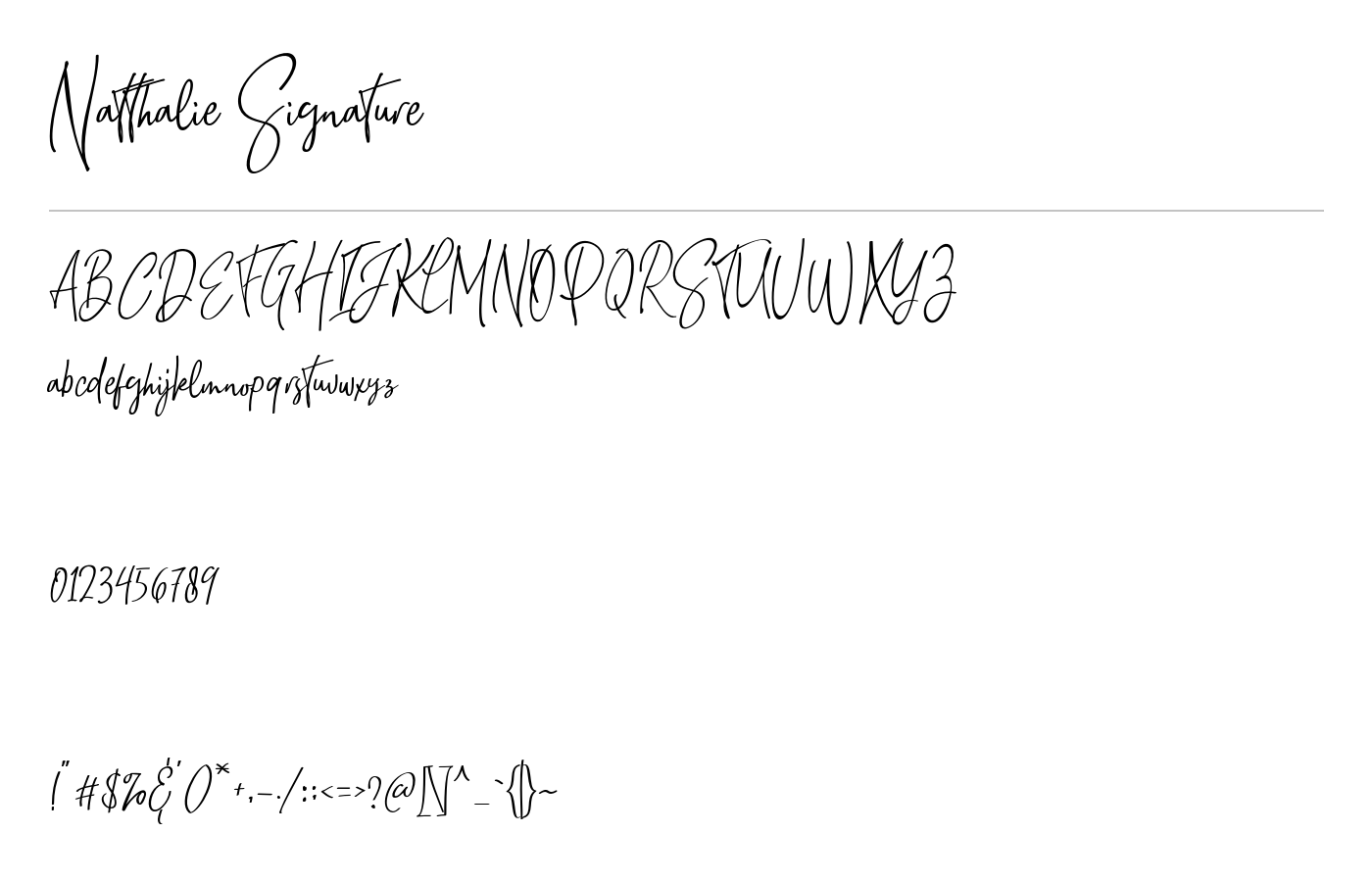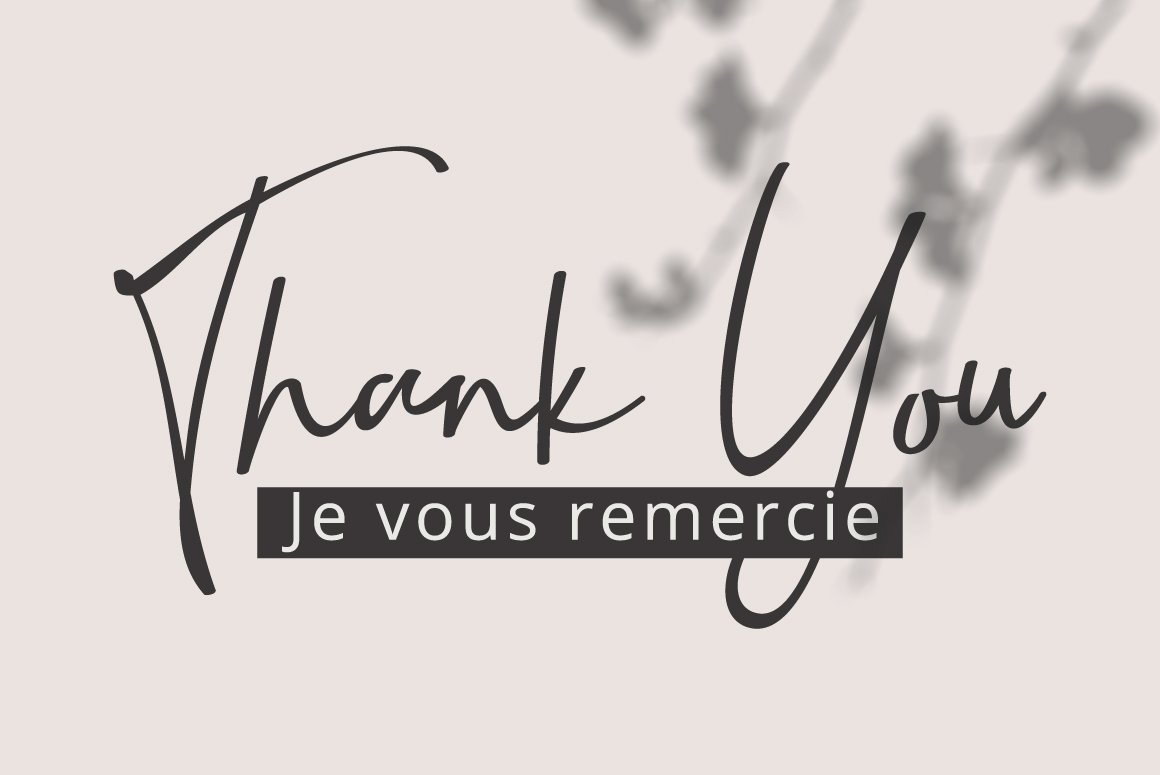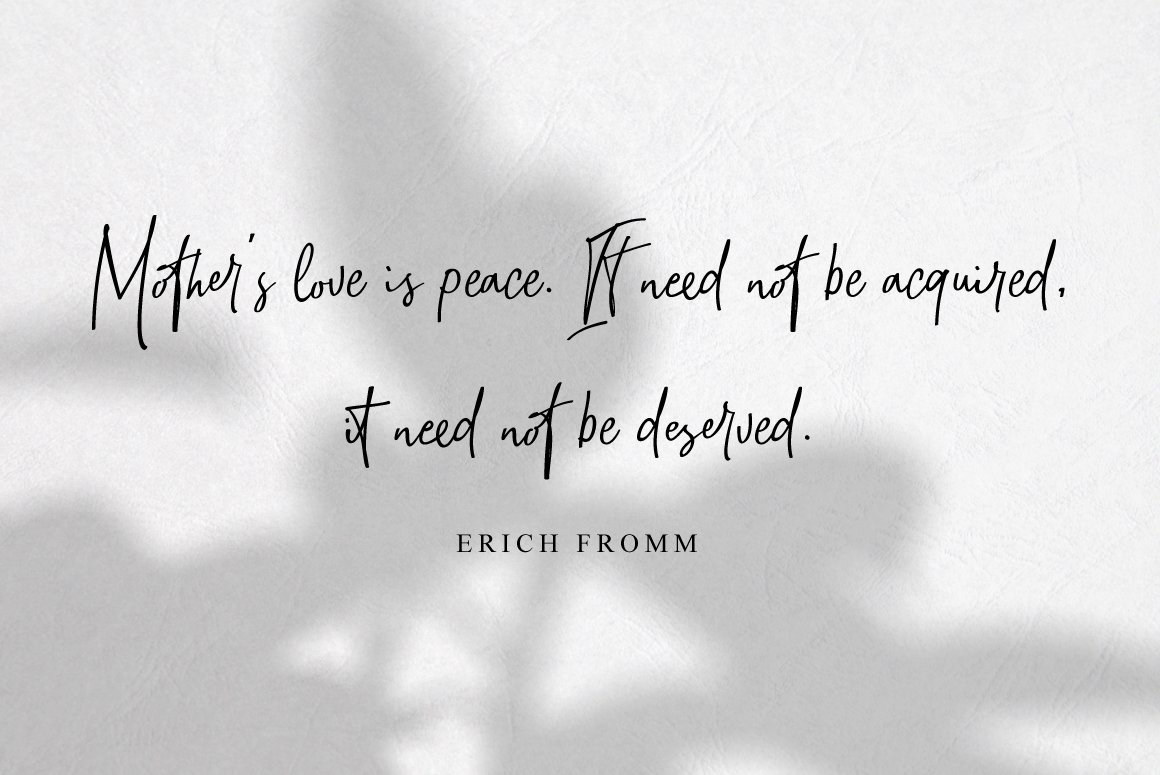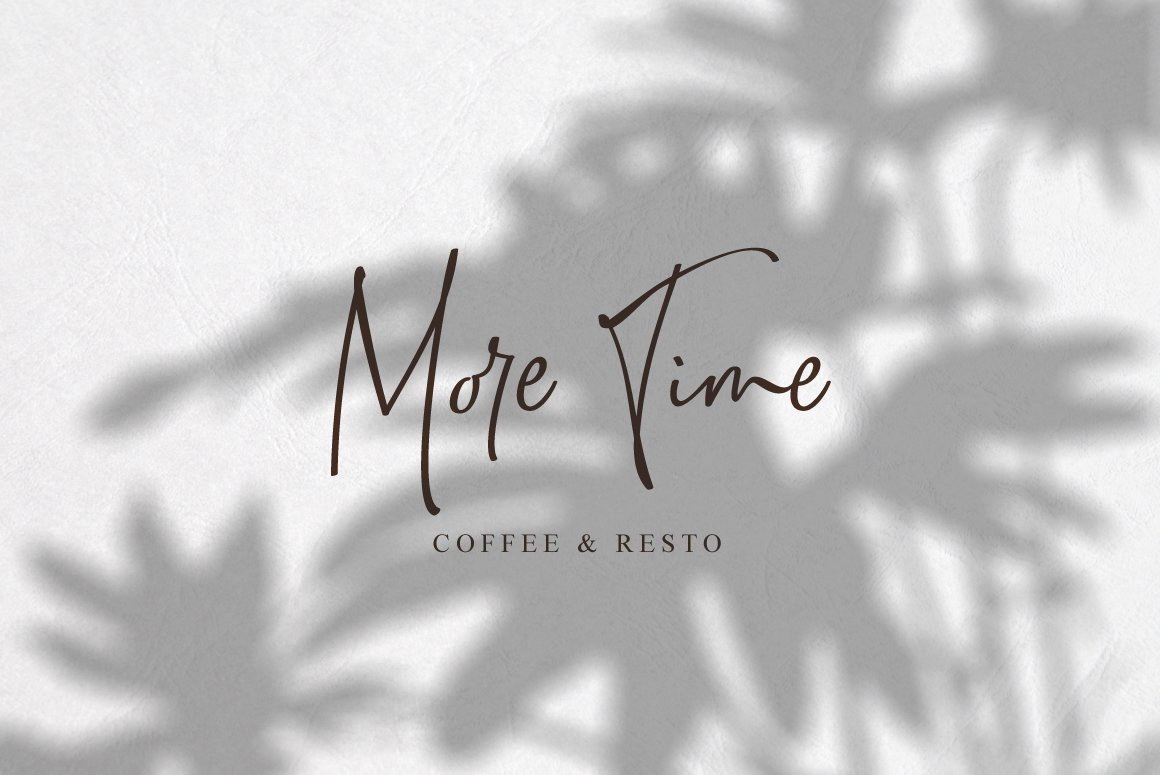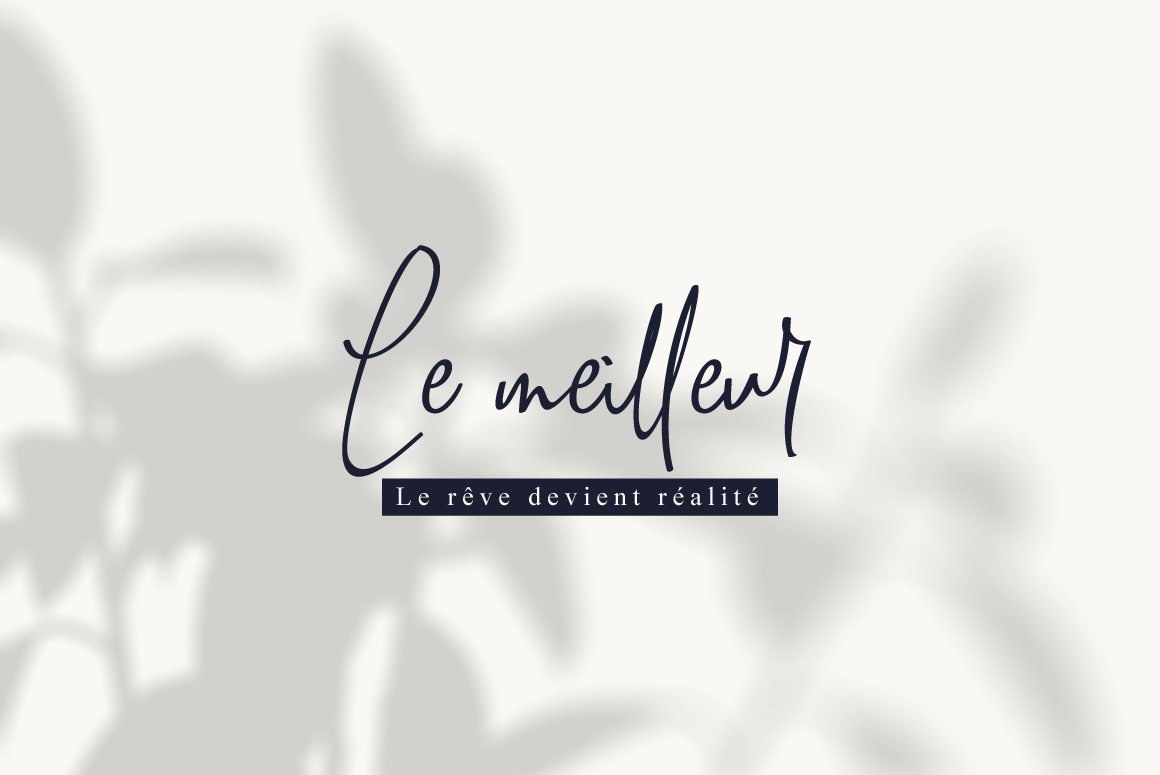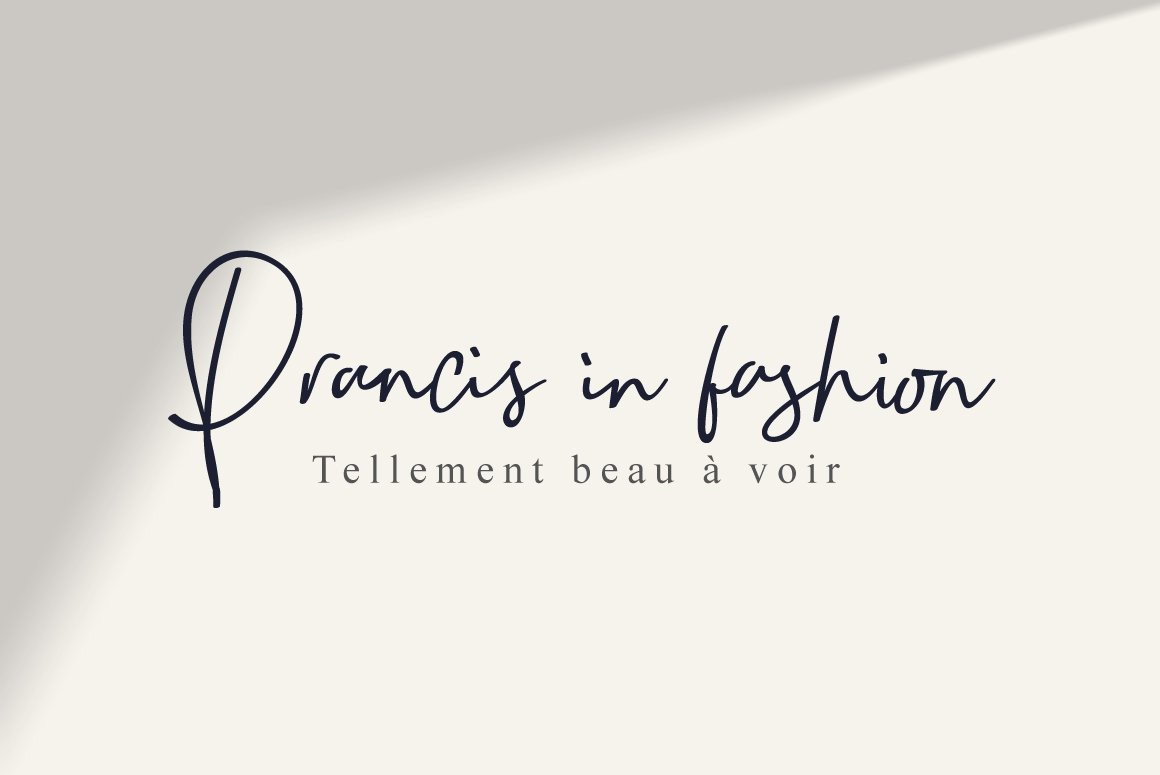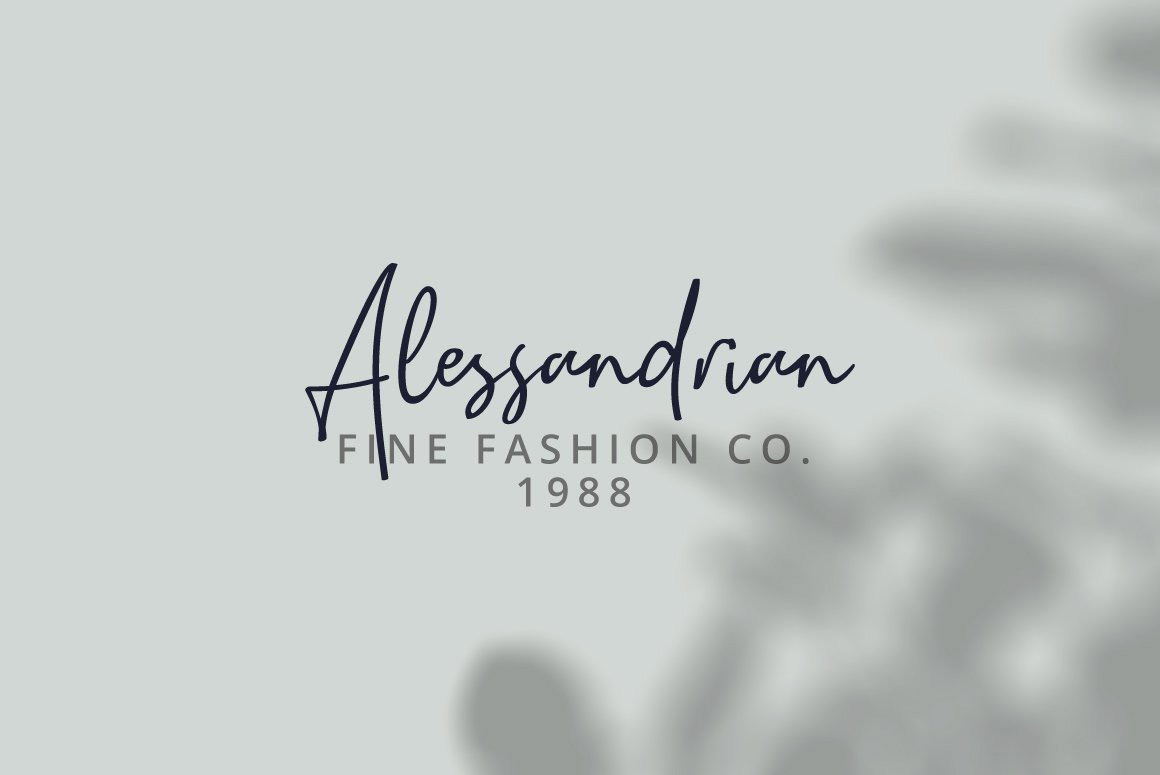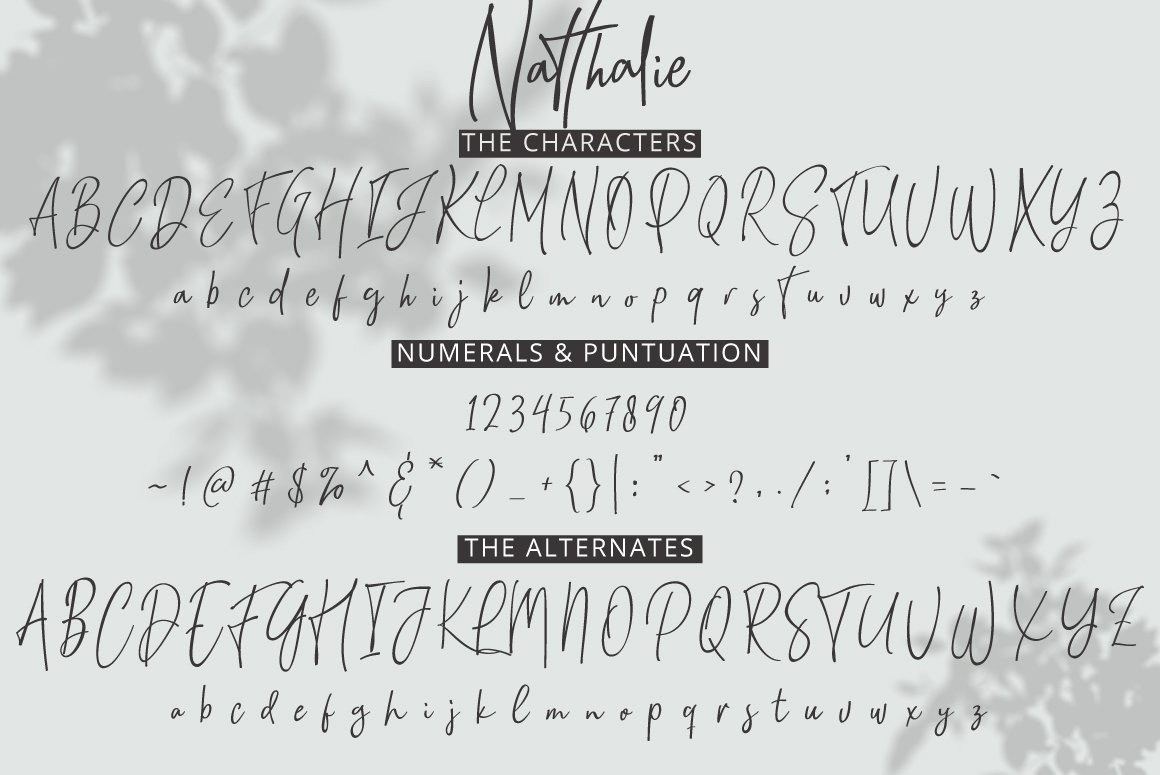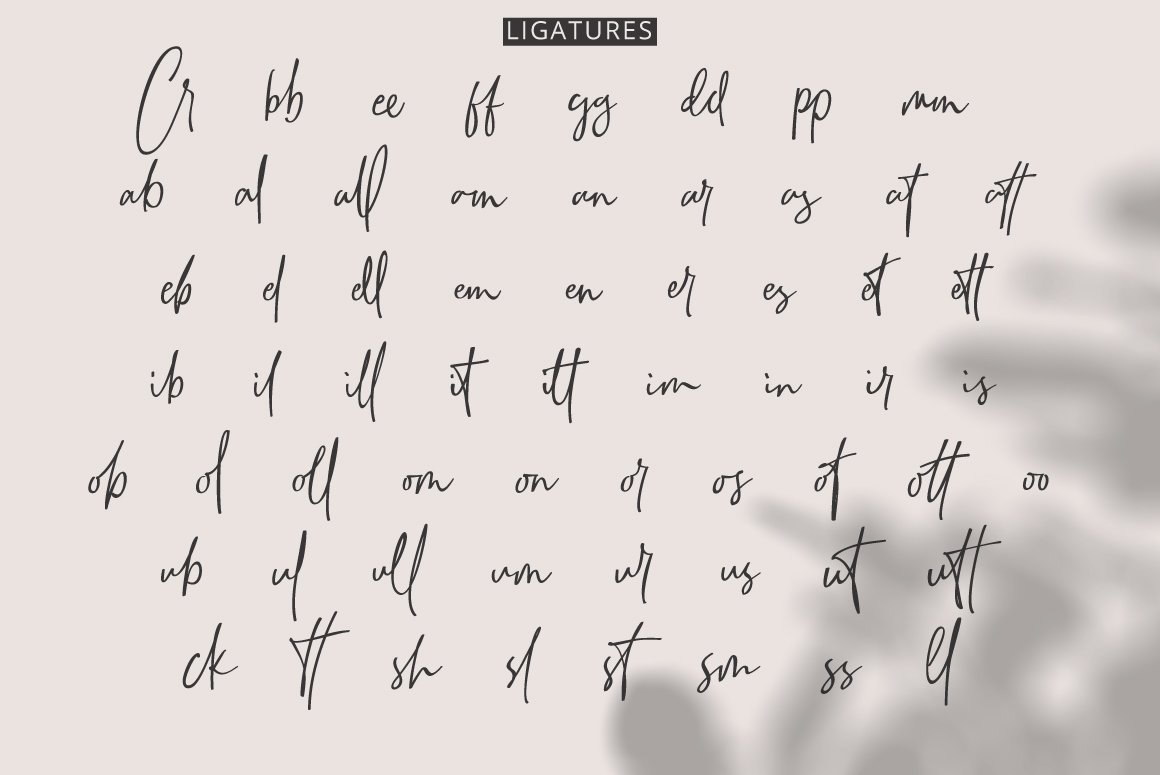
Natthalie Signature is a delicate, handwritten script font with a light weight and tall, narrow letterforms that give it an elegant and personal touch. Its flowing, slightly irregular strokes mimic natural penmanship, making it perfect for branding, invitations, or any design that seeks a sophisticated yet approachable feel. This font works best in logos, fashion, and luxury packaging where a stylish, modern signature effect is desired.
Natthalie Signature Font
About Natthalie Signature Font
| Designer | Ferdiansyah_Pointlab |